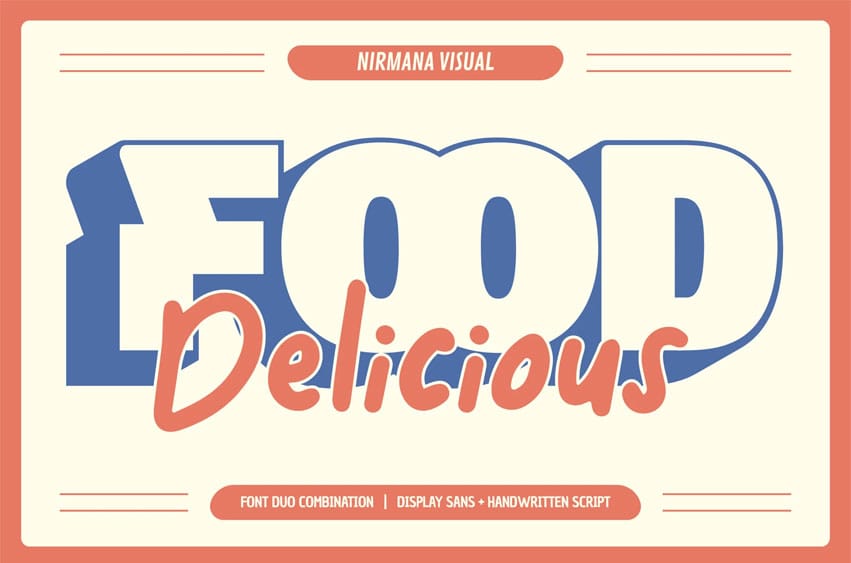
Food Delicious Font offers beautiful typographic harmony for a diversity of design projects, including logos & branding, social media posts, advertisements & product designs.
What you get: Two Font Styles, Regular, Extrude & Handwritten